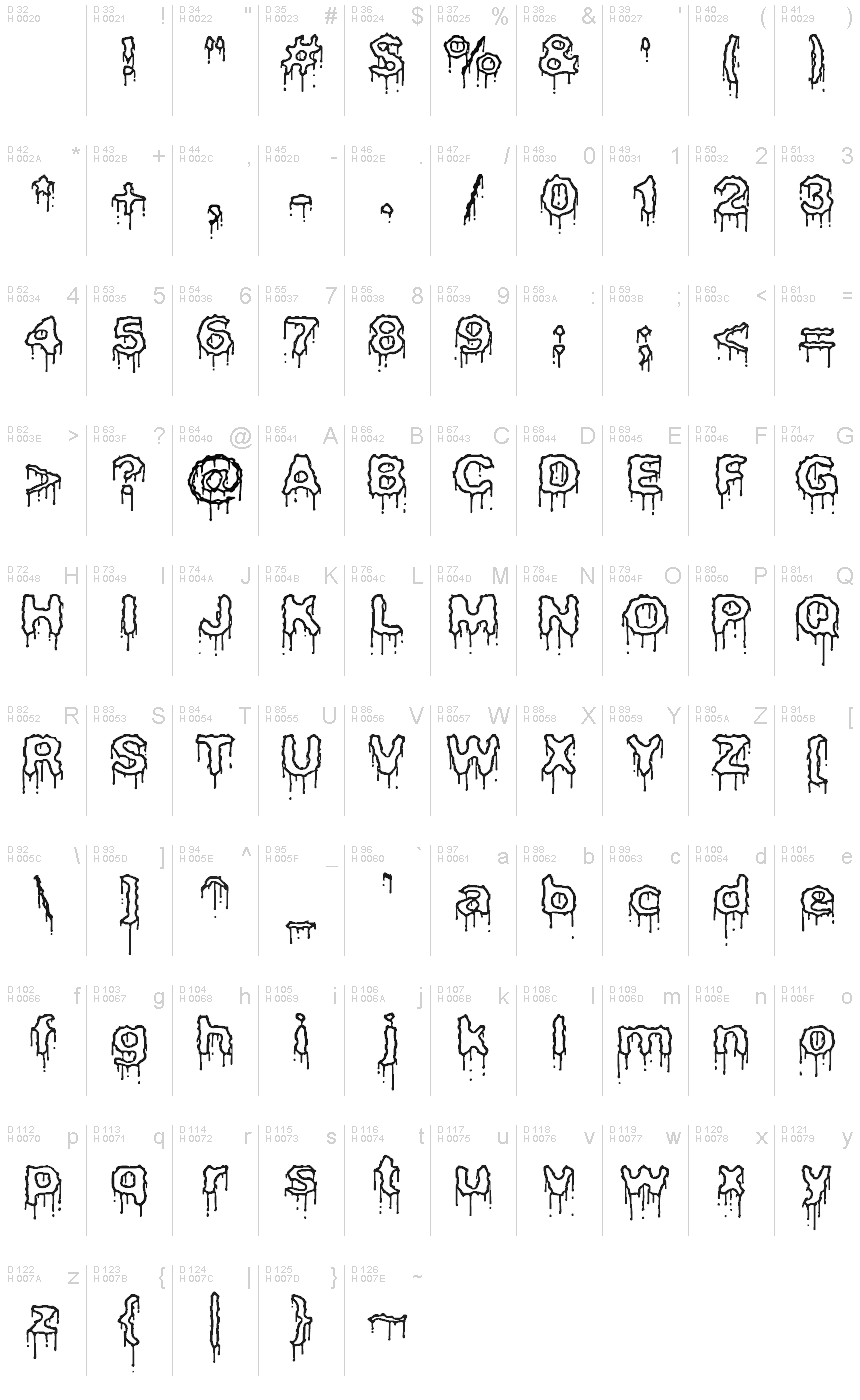
Plasma Drip Empty BRK
Plasma Drip BRK is a captivating display font that exudes an ominous, horror-inspired aesthetic. The dripping, outlined letterforms convey a sense of eerie, unsettling energy, evoking images of viscous, otherworldly substances.
This font's distinctive style lends itself seamlessly to a variety of design applications, from haunting movie posters and album covers to chilling book covers and Halloween-themed branding. Its bold, attention-grabbing presence makes it a versatile choice for designers seeking to create a striking, memorable visual impact.
Plasma Drip BRK's unique character is sure to captivate audiences and leave a lasting impression.
This font's distinctive style lends itself seamlessly to a variety of design applications, from haunting movie posters and album covers to chilling book covers and Halloween-themed branding. Its bold, attention-grabbing presence makes it a versatile choice for designers seeking to create a striking, memorable visual impact.
Plasma Drip BRK's unique character is sure to captivate audiences and leave a lasting impression.